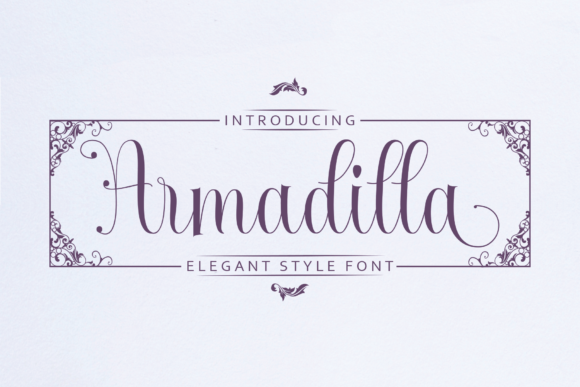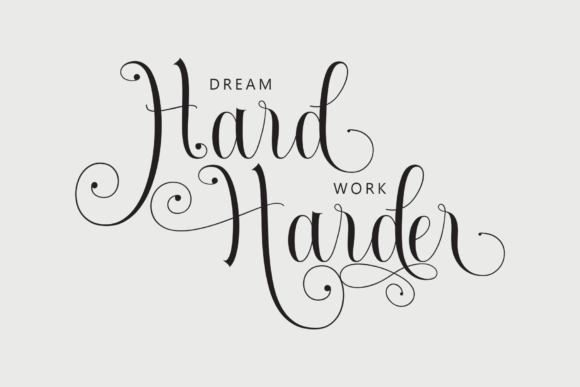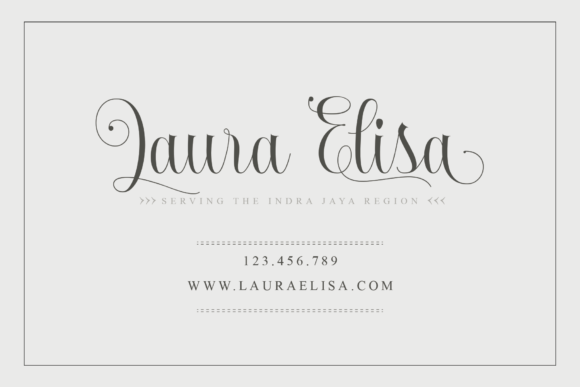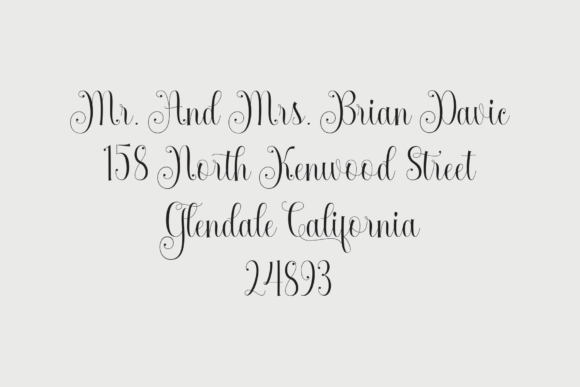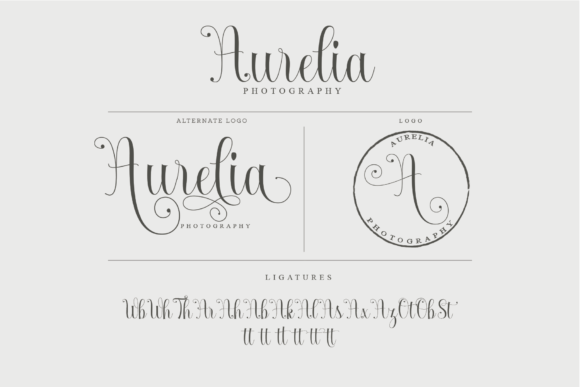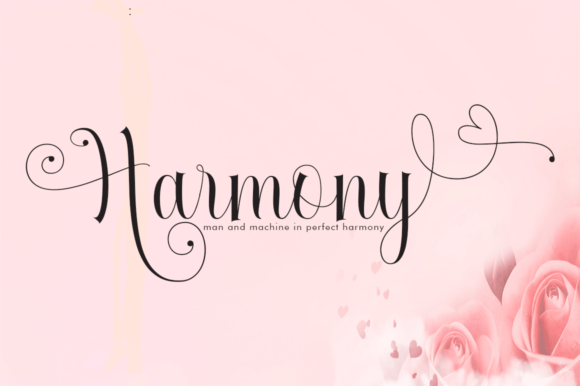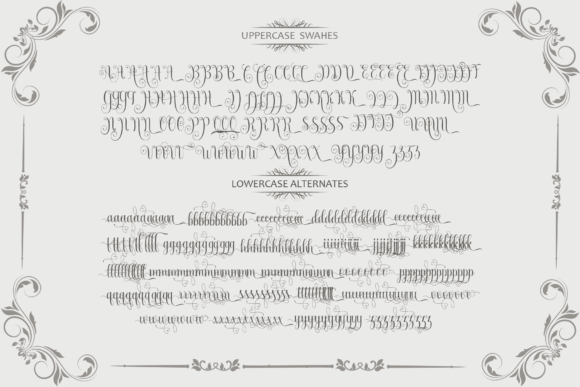
HomeScript FontsArmadilla Font Script Fonts Armadilla Font FacebookXPinterestWhatsApp Armadilla Font Poster 2 Armadilla Font Poster 3 Armadilla Font Poster 4 Armadilla Font Poster 5 Armadilla Font Poster 6 Armadilla Font Poster 7 About Armadilla Font Armadilla is an incredibly cute and harmonic script. Fall in love with its bold swashes. DOWNLOAD ON CREATIVE FABRICAThis font is sold and delivered by Creative Fabrica. Font Canyon may earn a commission if you buy through this link. People also explored Kakarotto Font Thalia Hillary Font Flamingo Font Agalenn Font Lovely Pink Font Crooked Font Cute Doodle Font Kravitz Natalia Liberty Font 279 0 TagsArmadilla Font Previous articleAmandella FontNext articleBlack Seashore Font LEAVE A REPLY Cancel reply Comment: Please enter your comment! Name:* Please enter your name here Email:* You have entered an incorrect email address! Please enter your email address here Website: Save my name, email, and website in this browser for the next time I comment. Personal Use Free Recharge Bold Personal Use Free Read more about this font Roustel Personal Use Free Read more about this font Grillin Personal Use Free Read more about this font Splatter Splash Personal Use Free Read more about this font BLOG Where to Buy American Fonts Online in 2024 Where to Buy American Fonts Online: The Ultimate Guide for 2024 Looking for the perfect American font to elevate your design projects? You're in the... Fonts That Capture the Spirit of New York City Best Fonts for YouTube Videos: Make Your Thumbnails Stand Out Top 10 Handwritten Fonts That Elevate Your Designs